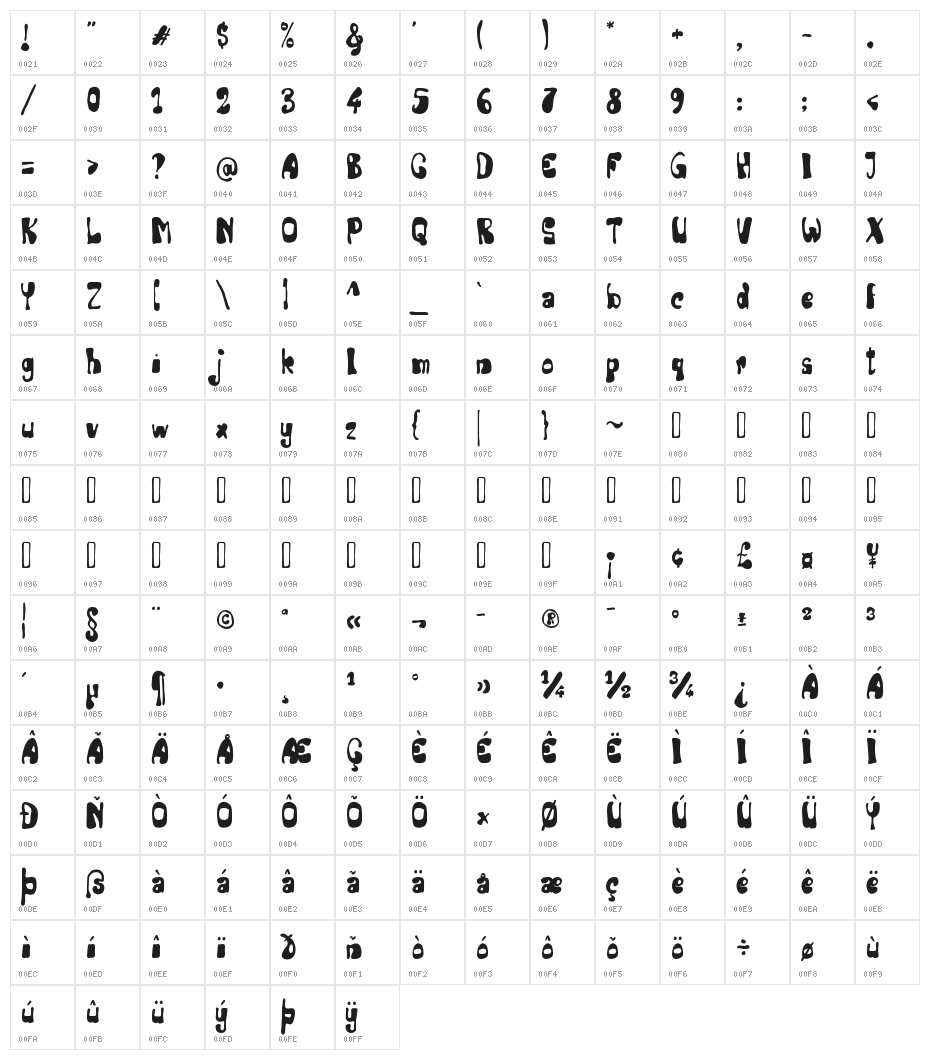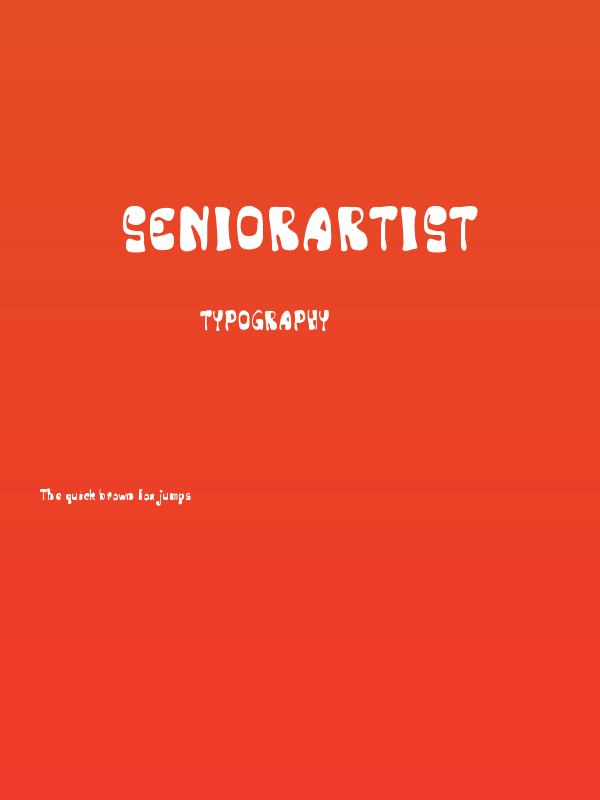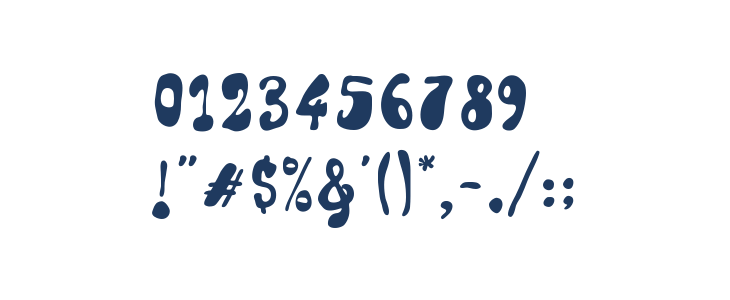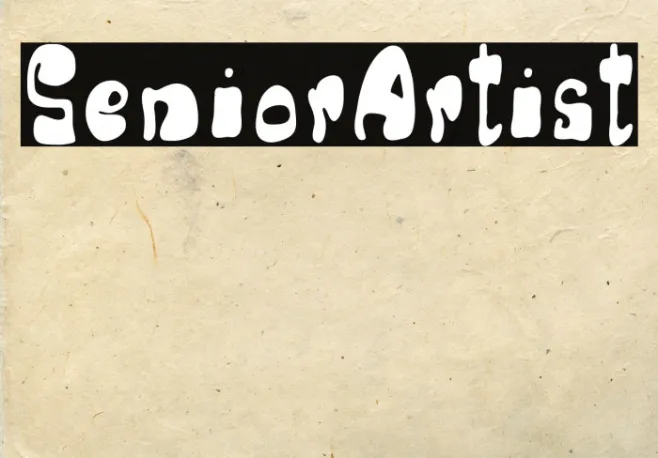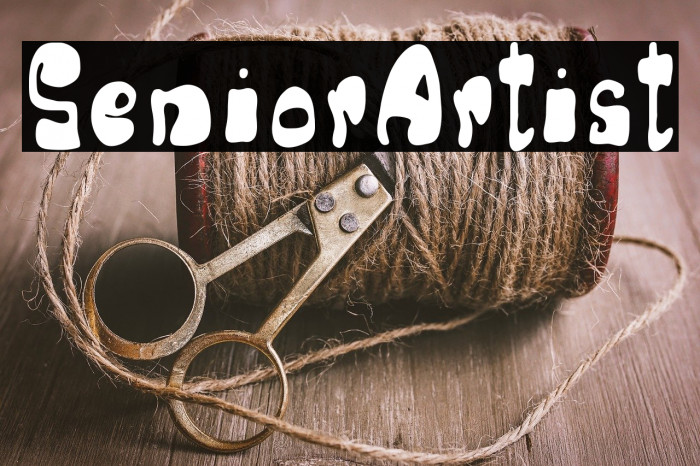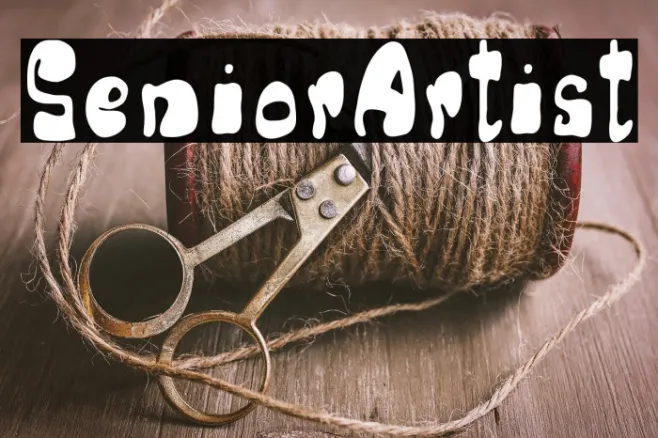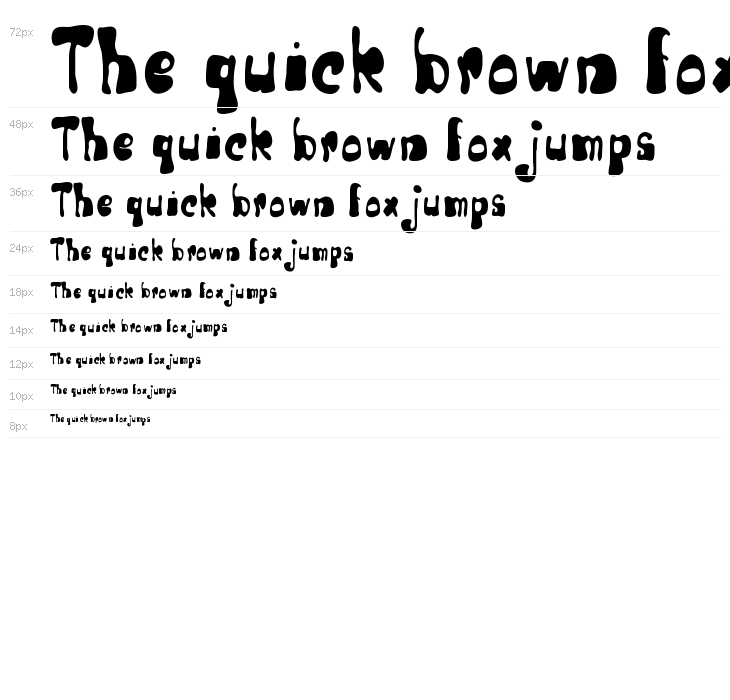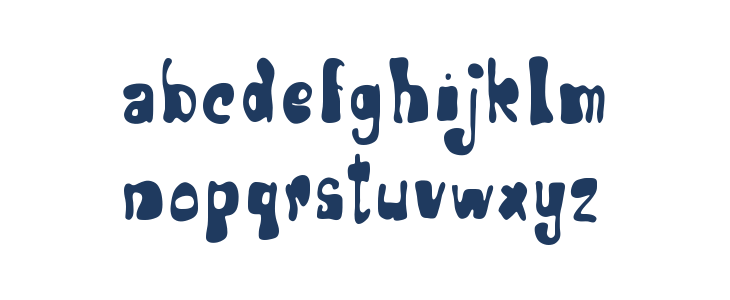
SeniorArtist Font
SeniorArtist Description
This font features a playful and bold design with irregular, organic shapes that give it a whimsical and artistic feel. The characters are rounded with varying stroke widths, creating a sense of movement and fluidity. The uppercase and lowercase letters maintain a consistent style, while the numbers and special characters complement the overall aesthetic. The font's unique appearance makes it ideal for creative projects that require a touch of fun and individuality. Its bold presence ensures it stands out, making it suitable for eye-catching designs.
| Proposed Projects | Ideal for children's books, creative posters, playful branding, and artistic designs. |